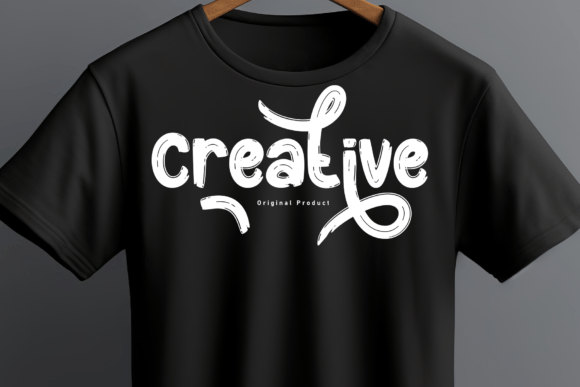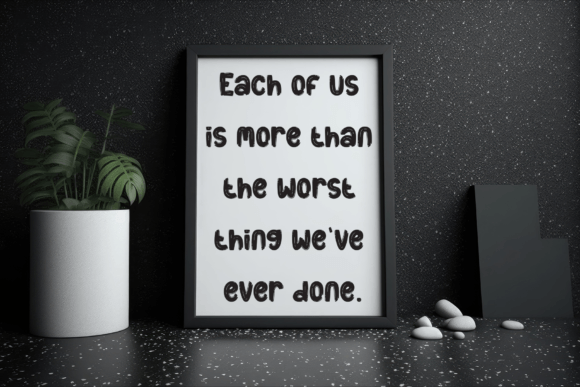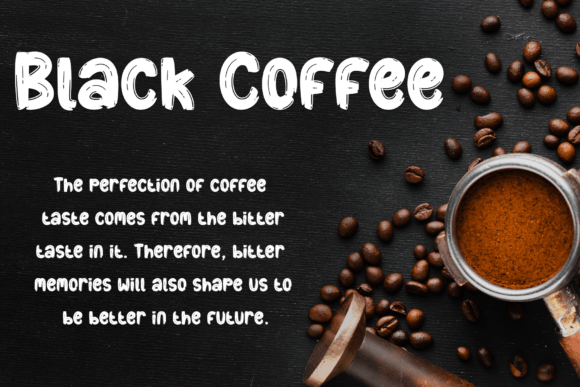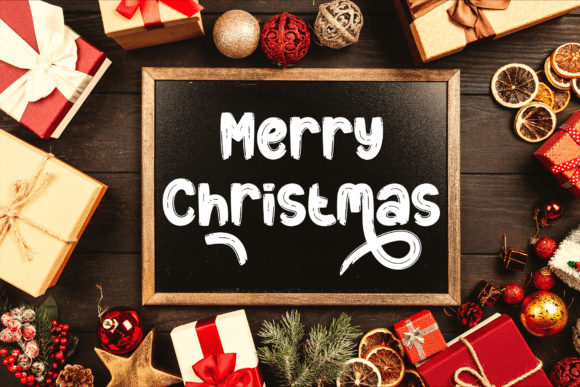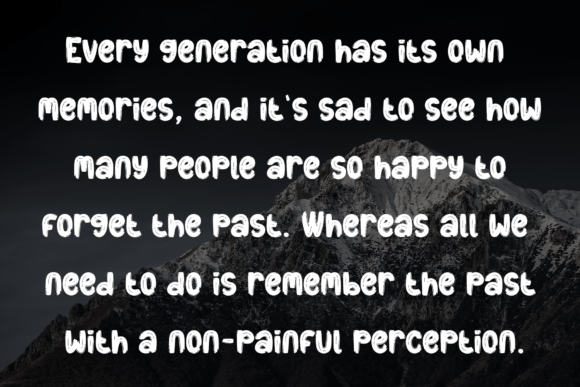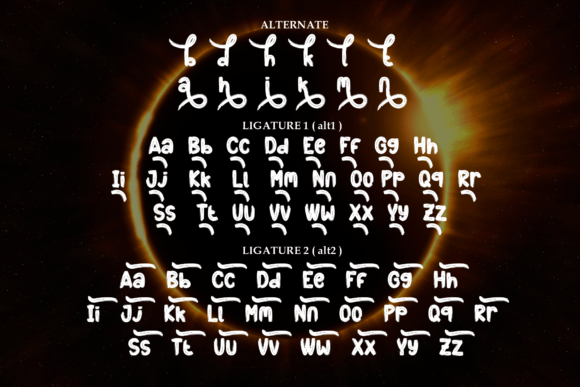
Eclipse Font: Elevate Your Designs with Elegance and Sophistication
Are you tired of using the same old fonts in your designs? Look no further than the Eclipse Font, a stunning handwritten font that is sure to become your new favorite. With its perfect blend of classic calligraphic influences and modern freshness, Eclipse is the ideal choice for designers and crafters looking to add a touch of elegance and sophistication to their projects.
The Story Behind Eclipse Font
Eclipse Font is a meticulously crafted font that boasts a unique and exquisite handwritten style. Its creator has masterfully designed it to exude a sense of luxury and refinement, making it perfect for high-end designs. Whether you’re working on a branding project, packaging design, or social media graphics, Eclipse Font is sure to make your work stand out from the crowd.
Key Features of Eclipse Font
- Handwritten style: Eclipse Font features a beautiful, handwritten style that adds a personal touch to your designs.
- Classy calligraphic influences: The font’s classic calligraphic influences give it a sense of sophistication and elegance.
- Contemporary and fresh: Despite its classic influences, Eclipse Font feels modern and fresh, making it perfect for contemporary designs.
- Versatile: Eclipse Font is suitable for a wide range of design projects, from branding and packaging to social media graphics and more.
Why Choose Eclipse Font?
So, why should you choose Eclipse Font for your next design project? Here are just a few reasons:
- Add a touch of elegance: Eclipse Font is the perfect way to add a touch of elegance and sophistication to your designs.
- Stand out from the crowd: With its unique and exquisite style, Eclipse Font is sure to make your designs stand out from the crowd.
- Easy to read: Despite its elegant style, Eclipse Font is easy to read, making it perfect for body text and headlines.
- High-quality design: Eclipse Font is a high-quality design that is sure to impress your clients and audience.
How to Use Eclipse Font in Your Designs
Using Eclipse Font in your designs is easy. Here are a few tips to get you started:
- Pair it with a sans-serif font: Pair Eclipse Font with a sans-serif font for a modern and fresh look.
- Use it for headlines and titles: Eclipse Font is perfect for headlines and titles, where its elegant style can really shine.
- Add a pop of personality: Use Eclipse Font to add a pop of personality to your designs and make them more engaging.
In conclusion, Eclipse Font is a stunning handwritten font that is sure to become your new favorite. With its perfect blend of classic calligraphic influences and modern freshness, it’s the ideal choice for designers and crafters looking to add a touch of elegance and sophistication to their projects. Whether you’re working on a branding project, packaging design, or social media graphics, Eclipse Font is sure to make your work stand out from the crowd. So why wait? Fall in love with Eclipse Font and bring your projects to the highest levels.